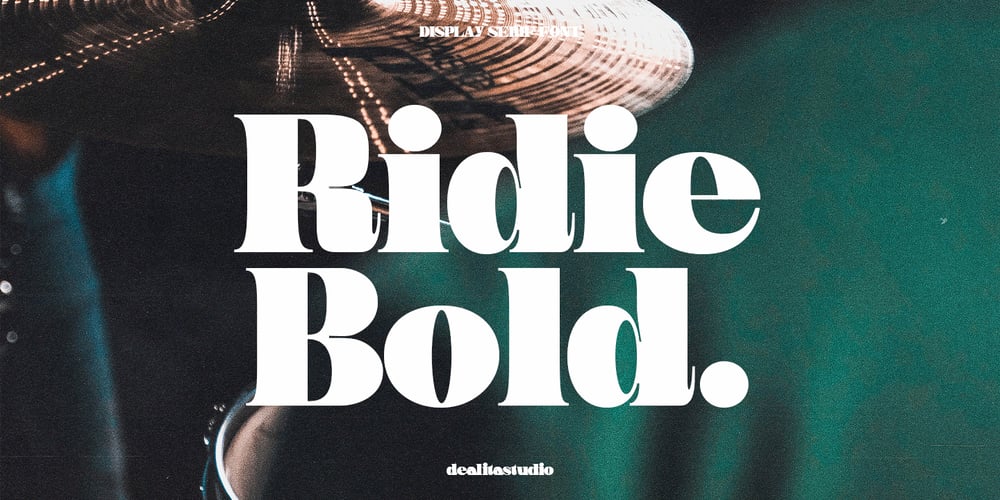
Ridie Font Family was designed by Januar Rahim and published by Dealita Studio. Ridie contains 1 styles and family package options. Ridie is an elegant display of modern serif with beautiful contrast. Specially designed for fashion-themed projects, perfectly suitable for creating elegant, chic, lifestyle designs such as logos, titles, magazines, and more.